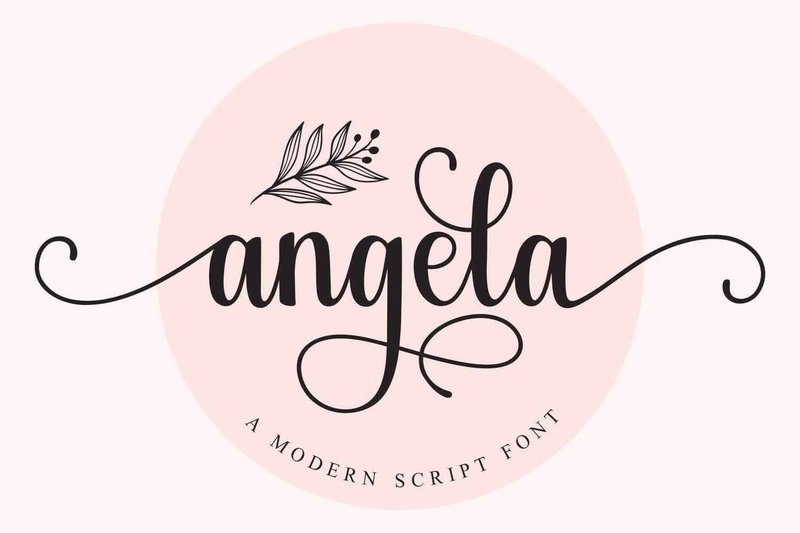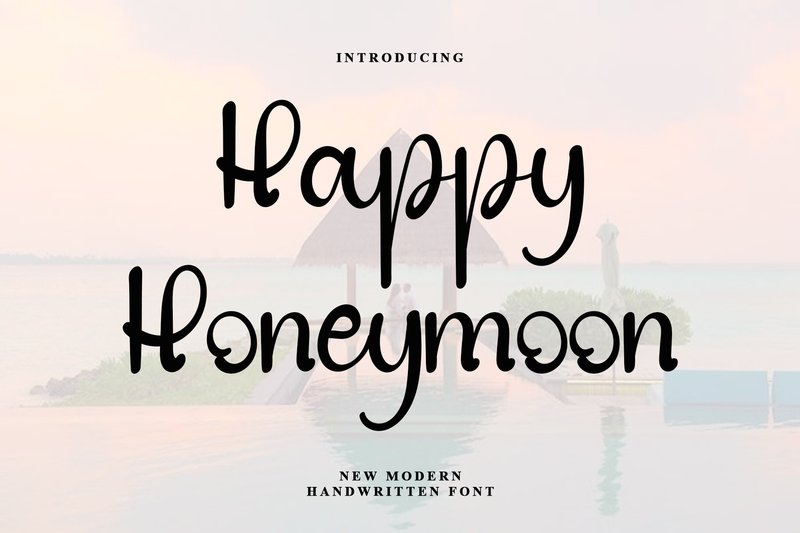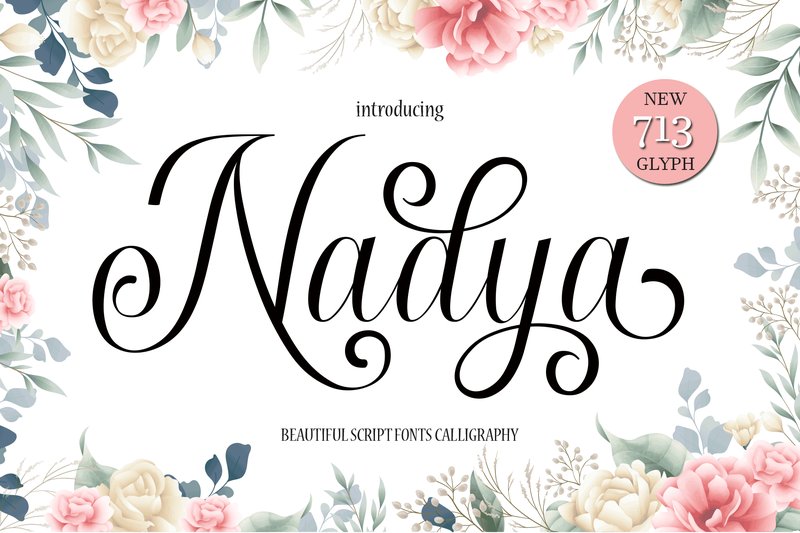
Your logo is the face of your brand, and the right font is its most critical feature. In the fast-paced design landscape of 2026, trends are shifting towards typefaces that blend timeless authority with modern-day clarity and approachability. A great business font must be versatile, legible on both a massive billboard and a tiny screen, and brimming with personality. That’s why we’ve curated this definitive list of 35 popular fonts—from powerhouse serifs to clean sans-serifs—that designers and entrepreneurs are using right now to build memorable, professional, and future-proof brand identities.
1. Angela (by Mozatype)
Angela (by Mozatype) delivers an effortless sophistication that feels both personal and premium, making it a standout choice for businesses aiming for a modern, approachable aesthetic. Its fluid, handwritten strokes strike the perfect balance between artistic flair and professional polish, ensuring that logos and branding materials feel bespoke and memorable. This font isn’t just a typeface; it’s a signature, conveying a sense of trust and creativity with every curve.
- Authentic, free-flowing handwritten letterforms with an elegant touch.
- Includes a full set of ligatures and swashes for stylistic customisation.
- Signature logos for photographers, consultants, and creative agencies.
- High-end product packaging, labels, and boutique branding.
- Polished social media watermarks and promotional graphics.
- Wedding invitations and upscale stationery suites.
2. Happy Honeymoon (by PiPi Creative)
Happy Honeymoon (by PiPi Creative) If you are looking for a font that blends personal warmth with professional polish, Happy Honeymoon is an exceptional choice. This timeless handwritten script feels both intimate and elegant, offering a refreshing alternative to more rigid corporate typefaces. Each letter is crafted with a unique, organic touch that brings a sense of life and authenticity to any design, making it a perfect asset for brands that want to communicate approachability and genuine connection.
- Elegant, timeless handwritten script
- Unique character forms for an authentic feel
- Designed to be eye-catching and highly legible
- A warm and personal aesthetic
- Boutique branding and lifestyle logos
- Social media quotes and visual content
- High-end packaging and product labels
- Signature-style watermarks and website headers
3. Nadya (by MYdesign)
Nadya (by MYdesign) is an effortlessly elegant handwritten font that brings a personal, yet highly professional, touch to modern branding. It strikes a perfect balance between approachability and sophistication, with clean, flowing lines that ensure brand names and taglines are both beautiful and exceptionally clear. This font feels like a signature from a trusted colleague—it’s authentic, stylish, and instantly imbues any design with a sense of current class, making it a standout choice for forward-thinking business identities.
- Refined, classy handwritten script style.
- Designed for high legibility and an attractive, stylish flow.
- Versatile character set suitable for logos, signatures, and branding.
- Signature logos and personal branding for coaches, photographers, and artisans.
- Sophisticated business cards, letterheads, and corporate stationery.
- Creating beautiful watermarks and overlays for professional photography.
- Eye-catching quotes, album art, and high-end packaging designs.
4. Outbon (by ABBAsalam)
Outbon (by ABBAsalam) is a testament to creator ABBAsalam’s skill in crafting handwritten fonts that feel both intimately personal and professionally polished. This timeless script sidesteps fleeting trends, offering a fluid, organic feel where every character possesses its own distinct personality. The result is a font that infuses designs with an authentic, handcrafted warmth, making any logo or brand identity feel instantly approachable and genuine.
- Fluid, handwritten letterforms with a timeless quality.
- Each character features a unique, organic touch for authenticity.
- Designed to be eye-catching for logos and display text.
- Signature logos for photographers, artisans, and boutiques.
- Branding for cafes, lifestyle blogs, and personal portfolios.
- Stylish social media quotes and editorial headlines.
- Packaging and product labels requiring a human touch.
5. Reindeer (by PeamCreations)
Reindeer (by PeamCreations) With its smooth, consistent strokes and charmingly imperfect letterforms, Reindeer brings a dose of handcrafted warmth to the modern business aesthetic. This handwritten font strikes a brilliant balance between playful personality and clean legibility, making it an incredibly versatile choice for brands that want to feel human and approachable. Its friendly, unassuming nature feels fresh and authentic, offering a welcoming alternative to more rigid corporate typefaces and infusing designs with a touch of genuine personality.